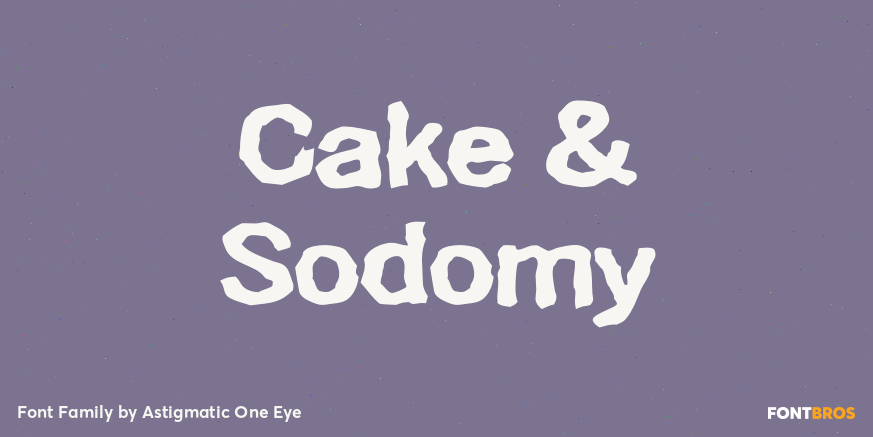
Cake & Sodomy
About Cake & Sodomy
Inspired by the title of a Marilyn Manson song, the Cake & Sodomy typeface was originally released in 1997, and in 2008 received an overhaul in the Opentype Pro version, which now includes extensive language support as well as smallcap capability.